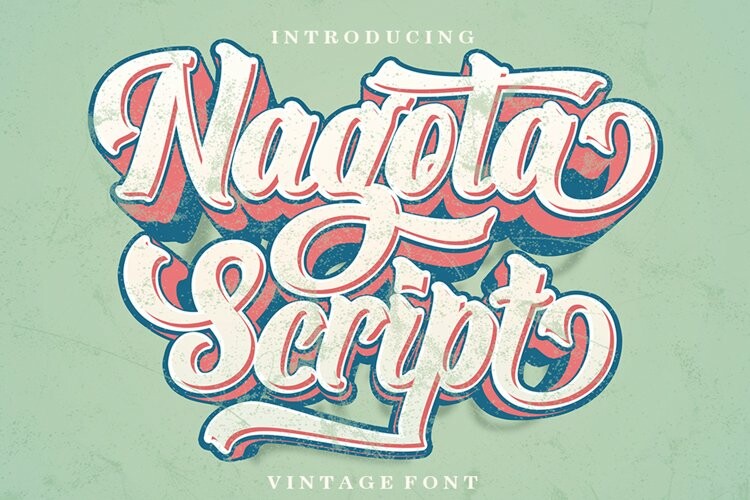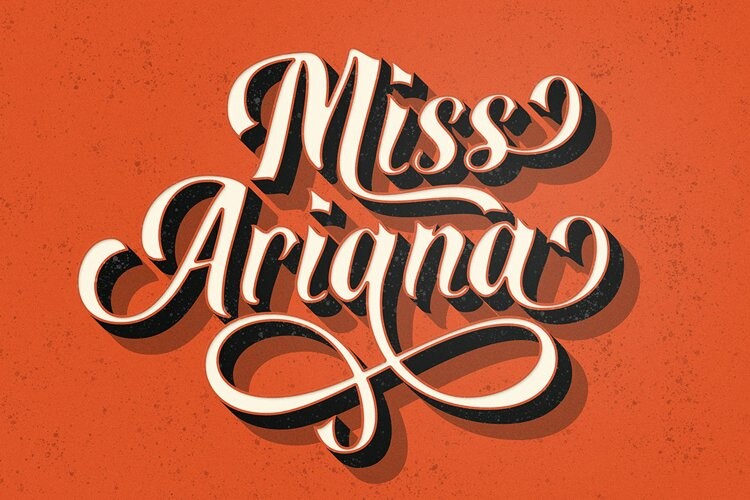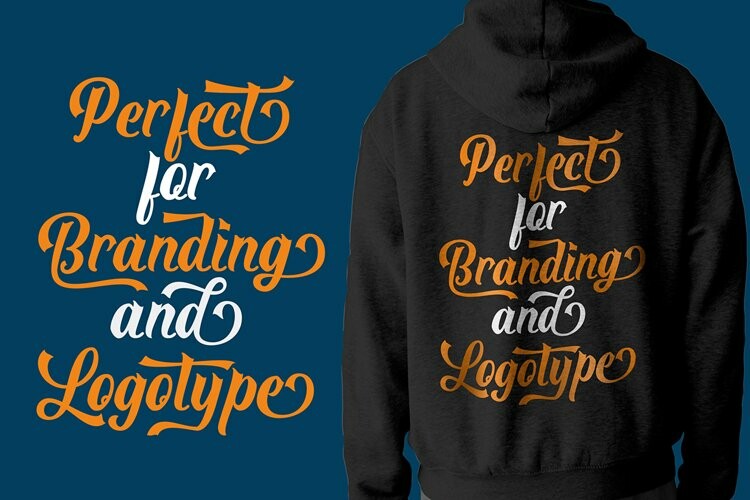
Nagota Font
Nagota FontNagota Script is a calligraphy script font that comes with beautiful alternative characters. a mixture of copper calligraphy with handleting style. Designed to bring style elegance. Nagota Script attracts such a subtle, clean, feminine, sensual, glamorous, simple and very readable typeface. The classic style is perfect to apply in various formal forms such as invitations, labels, menus, Logos, fashion, make up, stationery, letterpress, romantic novels, magazines, books, greeting / wedding cards, packaging, labels.